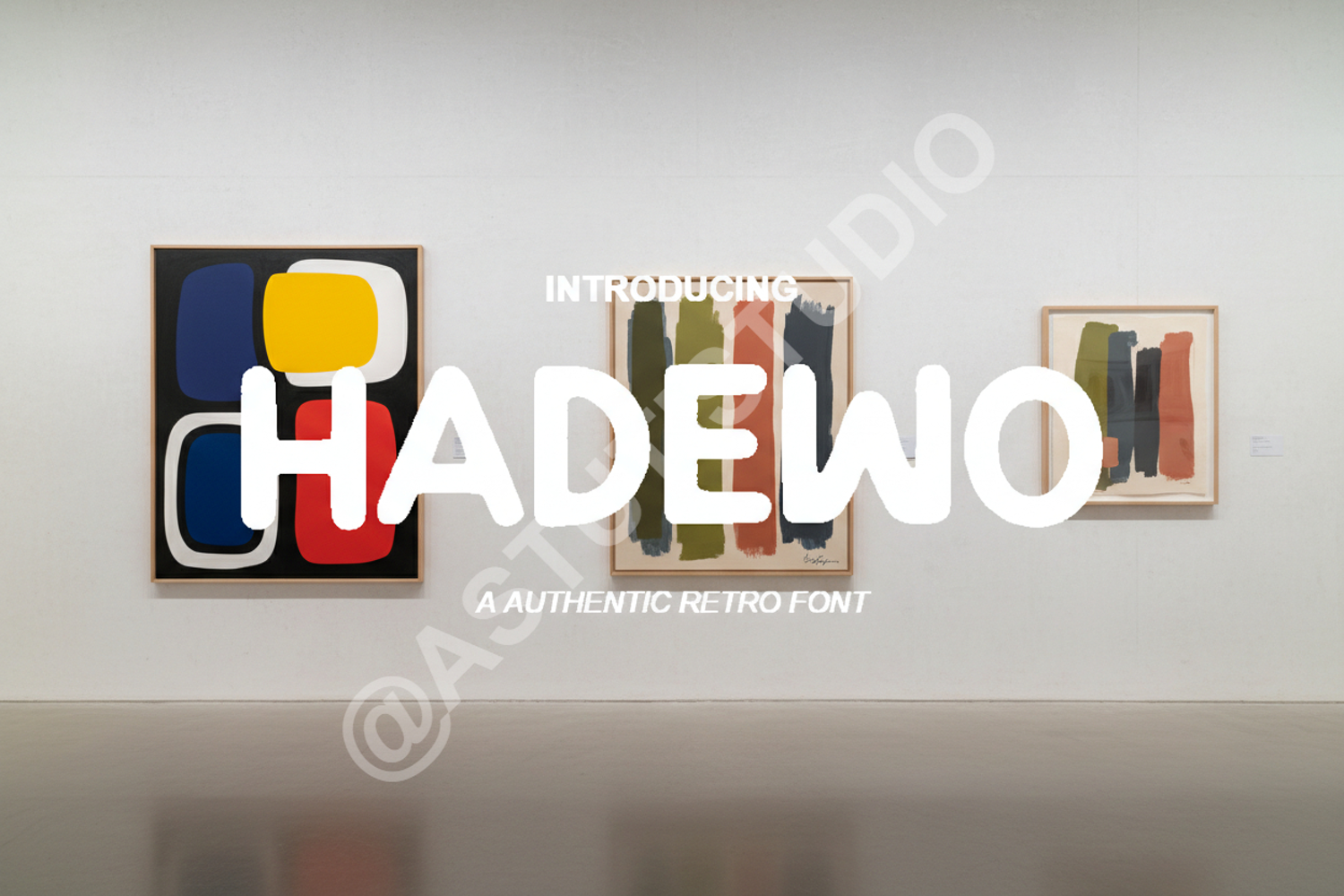
Hadewo - Modern & Elegant Geometric Sans Serif
Hadewo
Hadewo is a premium geometric sans serif font designed for modern aesthetics and high-end versatility. With its clean lines and balanced proportions, Hadewo brings a sophisticated touch to any creative project, ensuring your designs stand out with professional clarity and timeless appeal.